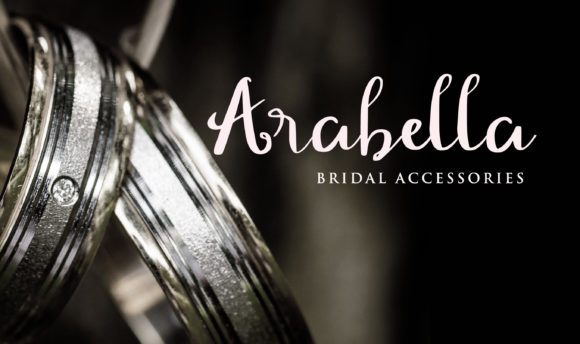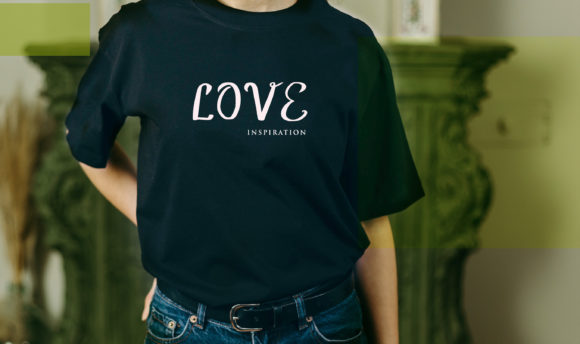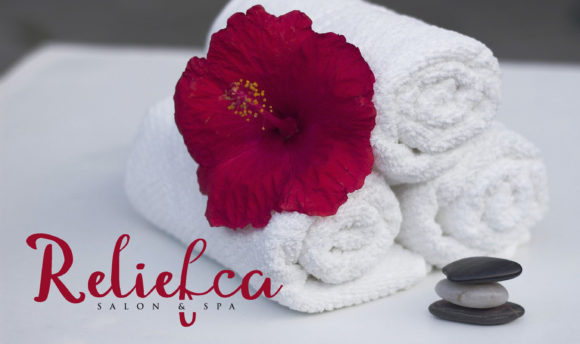
Introducing Chatalista Font: Elevate Your Designs with a Beautiful Handwritten Touch
In the world of design, fonts play a crucial role in bringing ideas to life. A well-chosen font can elevate your design, convey the right message, and leave a lasting impression on your audience. If you’re a designer, crafter, or DIY enthusiast looking for a beautiful handwritten font to add a personal touch to your projects, look no further than Chatalista Font. In this article, we’ll explore the features and benefits of Chatalista Font, and how it can help you create spectacular designs that stand out.
What is Chatalista Font?
Chatalista Font, also known as Catalista, is a stunning handwritten font designed to add a touch of elegance and sophistication to your designs. With its unique and flowing script, Chatalista Font is perfect for creating realistic and eye-catching designs that capture the essence of your ideas. Whether you’re working on a branding project, crafting a handmade product, or creating digital content, Chatalista Font is an excellent choice.
Key Features of Chatalista Font
- Beautiful Handwritten Script: Chatalista Font boasts a gorgeous handwritten script that adds a personal touch to your designs.
- Elegant and Sophisticated: The font’s unique and flowing style makes it perfect for creating elegant and sophisticated designs.
- Highly Versatile: Chatalista Font can be used for a wide range of design projects, from branding and advertising to crafting and DIY.
- Easy to Read: The font is clear and easy to read, making it perfect for body text and headings.
Benefits of Using Chatalista Font
So, why choose Chatalista Font for your design projects? Here are some benefits of using this beautiful handwritten font:
- Adds a Personal Touch: Chatalista Font adds a personal touch to your designs, making them more relatable and engaging.
- Enhances Brand Identity: The font’s unique style can help you create a distinctive brand identity that sets you apart from others.
- Increases Readability: Chatalista Font is easy to read, making it perfect for body text and headings.
- Perfect for Handmade and DIY Projects: The font’s handmade feel makes it perfect for crafting and DIY projects, such as handmade cards, invitations, and packaging.
How to Use Chatalista Font
Using Chatalista Font is easy! Here are some tips to get you started:
- Pair it with Other Fonts: Pair Chatalista Font with other fonts to create a unique and visually appealing design.
- Use it for Headings and Titles: Use Chatalista Font for headings and titles to add a touch of elegance and sophistication.
- Make it Your Own: Don’t be afraid to experiment and make Chatalista Font your own by adjusting the size, style, and formatting to suit your design needs.
In conclusion, Chatalista Font is a beautiful handwritten font that can elevate your designs and add a personal touch to your projects. With its elegant and sophisticated script, Chatalista Font is perfect for designers, crafters, and DIY enthusiasts looking to create spectacular designs that stand out. Whether you’re working on a branding project, crafting a handmade product, or creating digital content, Chatalista Font is an excellent choice. So why wait? Try Chatalista Font today and take your designs to the next level!
Catalista is a beautiful handwritten font. Use it to make your ideas even more realistic and create spectacular designs!